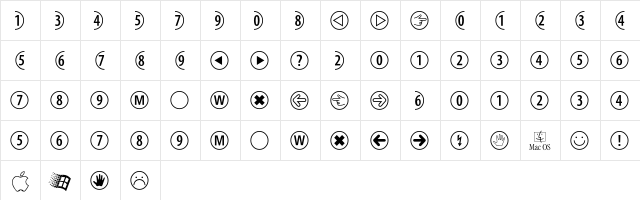
Combnumb 1
Design Context for Combnumb Typeface
Combnumb takes a measured approach to typography — its balanced proportions and neutral character make it a reliable workhorse for both digital and print work.